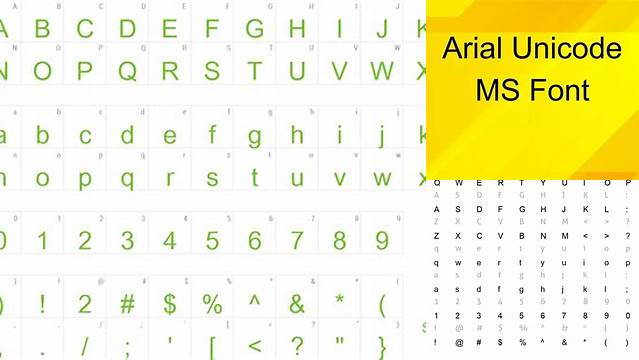
Hey guys! Are you on the hunt for a versatile font that can handle a massive range of characters? Look no further than the Arial Unicode MS font! This font is a true workhorse, capable of displaying text in countless languages. And the best part? You can often download Arial Unicode MS font for free! In this article, we'll dive deep into everything you need to know about this amazing font, including how to grab your own copy, its uses, and why it's such a popular choice. So, let's get started and explore the world of Arial Unicode MS!
H2: Understanding the Versatility of Arial Unicode MS Font
Let's talk about why Arial Unicode MS font is such a champ when it comes to versatility. This font supports a massive range of characters, covering various languages and symbols. This makes it an excellent choice for documents or projects that need to accommodate multiple scripts, such as those that use Cyrillic, Greek, or even Asian languages. If you're working on something that requires global reach, the Arial Unicode MS font is your friend. Unlike many other fonts that only support a limited character set, this font aims to be as comprehensive as possible. This means you are less likely to encounter those annoying character replacement issues, where a character is missing, and the text looks jumbled. It allows for a cohesive and unified look across different languages, providing an excellent user experience. This feature is a game-changer for multilingual documents.
Because of its ability to handle so many different character sets, the Arial Unicode MS font is commonly used in business settings for international documents, technical manuals, and educational materials. It guarantees that the text displays correctly regardless of the language. This font is especially helpful for people who need to create documents that are accessible to a global audience. The use of this font can enhance communication and avoid confusion caused by font substitutions. It’s also often chosen for software interfaces and website design to ensure all text elements render correctly, no matter the user's language settings. This wide-ranging support eliminates the need to switch fonts constantly.
Its versatility also extends to its design, which is clean and easily readable at various sizes. It's a humanist sans-serif font, making it suitable for both headlines and body text. This versatility saves time and effort during the design process, allowing you to focus on the content. The consistent appearance across different languages and platforms is a key advantage of Arial Unicode MS.
H2: Key Features and Benefits of Using Arial Unicode MS Font
Okay, so, what exactly makes Arial Unicode MS font so awesome? Well, let's break down some of its key features and benefits, shall we? First off, as mentioned, the massive character support is a huge plus. It handles thousands of characters, covering a vast range of languages and symbols, allowing you to use it in practically any context. This is incredibly useful if you work with multilingual content.
Against fonts like Times New Roman, which is a serif font, Arial Unicode MS presents a different style. Times New Roman, with its serifs, is often favored for body text in printed materials, as it can improve readability in long blocks of text. Arial Unicode MS, being a sans-serif font, is better suited for on-screen reading and headings. The clean lines of Arial Unicode MS make it a great choice for modern designs. In comparison to more specialized fonts, such as those designed for specific scripts or symbols, Arial Unicode MS aims for broader coverage. It's the